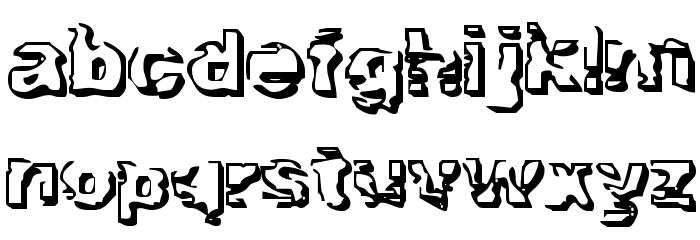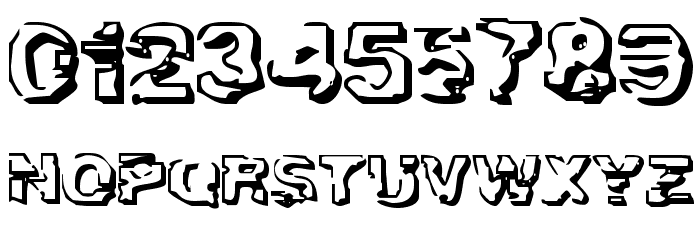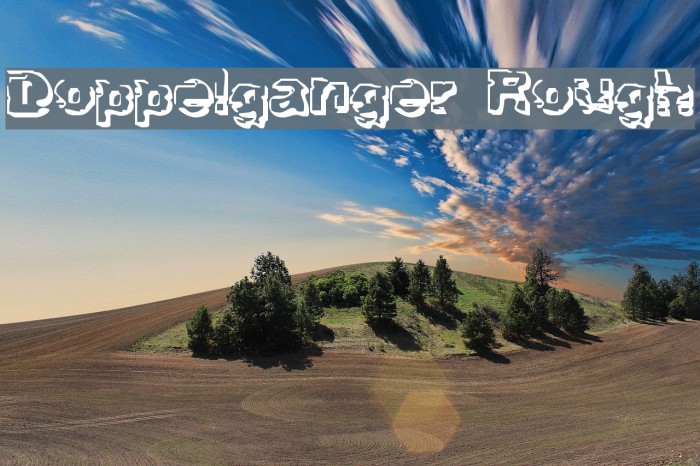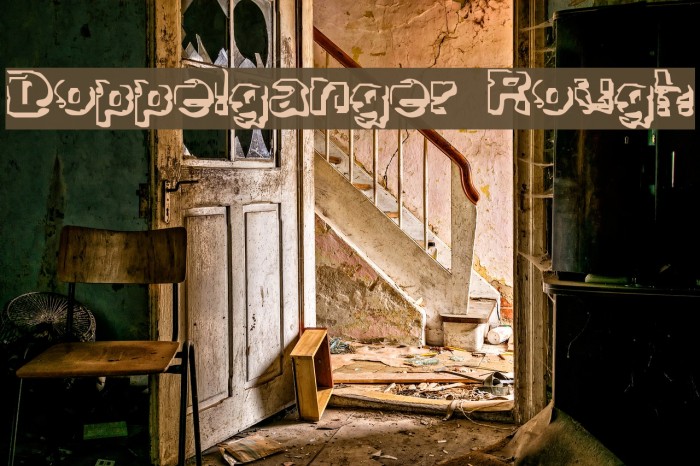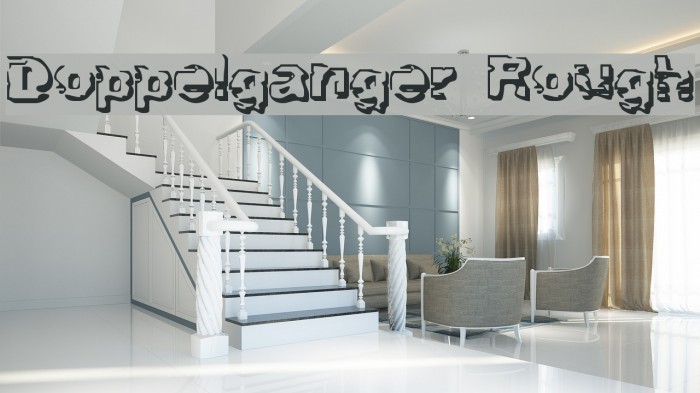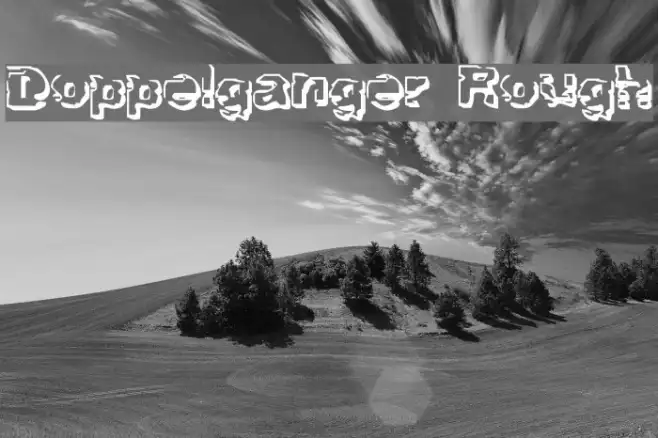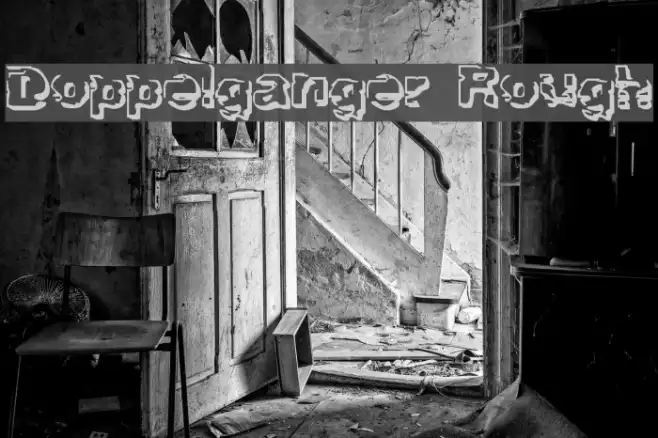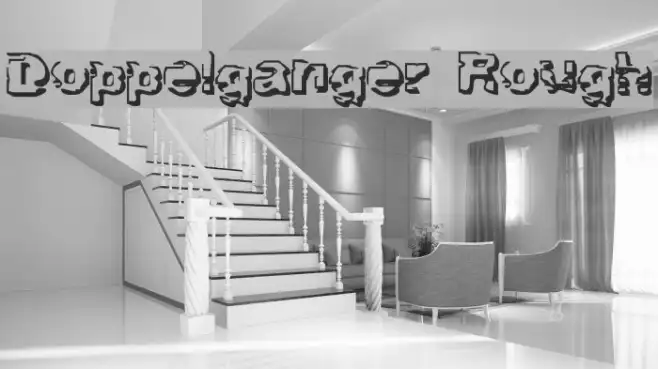
Doppelganger Rough Font
This font features a bold, rough, and distressed style that gives it a unique, edgy appearance. The characters are heavily stylized with irregular edges and a shadow-like effect that adds depth and dimension. This design creates a sense of movement and dynamism, making it stand out in any context. The uppercase and lowercase letters maintain a consistent rough texture, while the numerals and special characters follow the same aesthetic, ensuring uniformity across all text elements. The font's distinctive look is ideal for projects that require a strong visual impact.
A bold, rough, and distressed font with a dynamic, edgy style.
- Proposed Projects: Ideal for posters, album covers, branding, and any design requiring a bold statement.